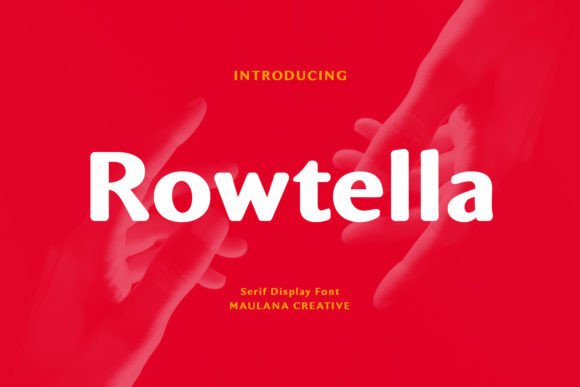
Introducing the new Rowtella font – a sleek and contemporary serif font that is perfect for all your display ad needs. Created by Maulana Creative, this font is the perfect blend of modern sophistication and classic elegance.
With its clean and sharp lettering, Rowtella is designed to convey a sense of elegance and style, making it an excellent choice for web design, branding, and editorial purposes. Whether you are looking to create a professional website or a captivating advertising campaign, Rowtella is the font you need to make a statement.
One of the standout features of Rowtella is its PUA encoding, which means that you can easily access all the delightful glyphs and swashes. This makes it easy to create beautiful and intricate designs without having to worry about complex coding or formatting.
So why choose Rowtella? Well, if you're looking to create a unique and captivating display ad, this font is the perfect choice. With its modern and sophisticated style, Rowtella will help elevate your brand and make a lasting impression on your target audience.
In addition to its aesthetic appeal, Rowtella is also incredibly versatile. Whether you're creating a website, brochure, or social media post, this font is sure to make a statement and leave a lasting impression.